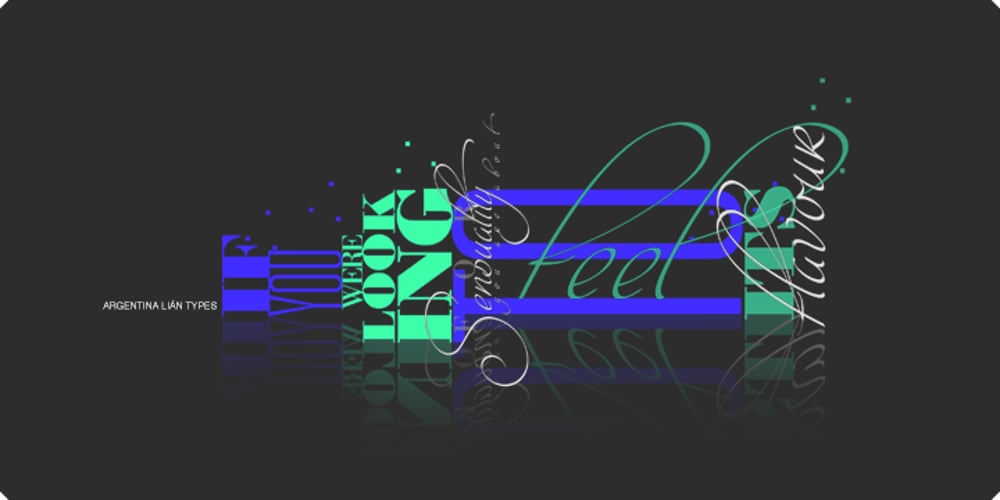
Intima Script
Intima Script font
Intima Script Font Family was designed by Maximiliano R. Sproviero and published by Sproviero Type. Intima Script contains 3 styles and family package options. A sensual typography designed by Lián Types. Very suitable for wedding invitations or sensitive pieces of design. Intima is divided in 3 different styles. User may use them at the same time, making totally original cards, combining and mixing the glyphs of them. The right choice for those who love script flavor; Intima will delight you.